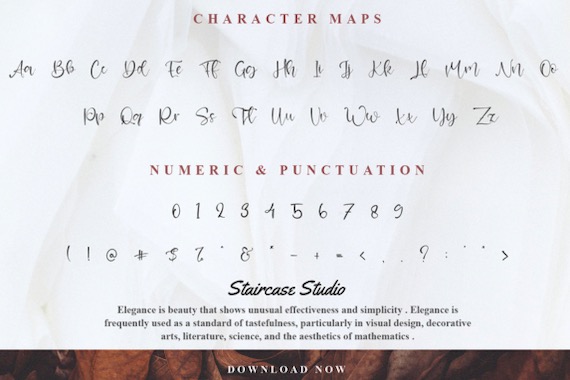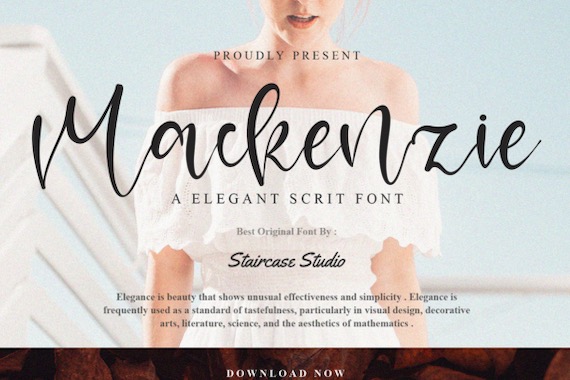
Mackenzie Font is a graceful and beautiful handwritten script typeface that was created and shared by Staircase Studio20. This script font has an ageless look that can be perfectly used for many types of modern projects like logos, branding, invitations, stationery, wedding designs, social media posts, and much more!
Mackenzie Handwritten Script Font